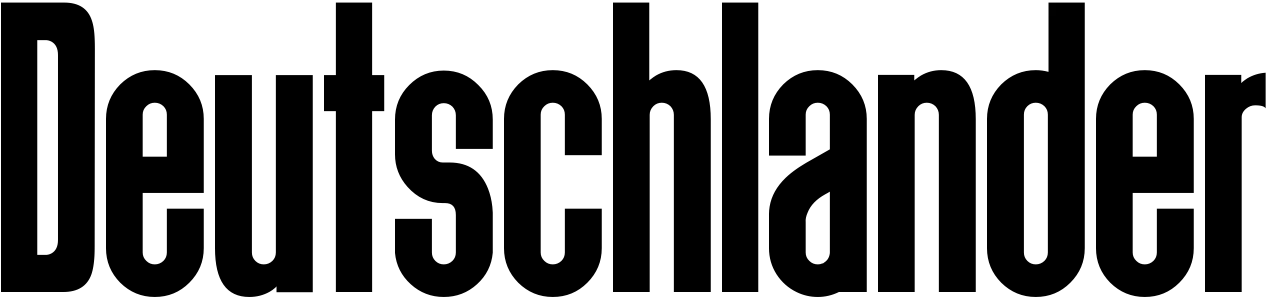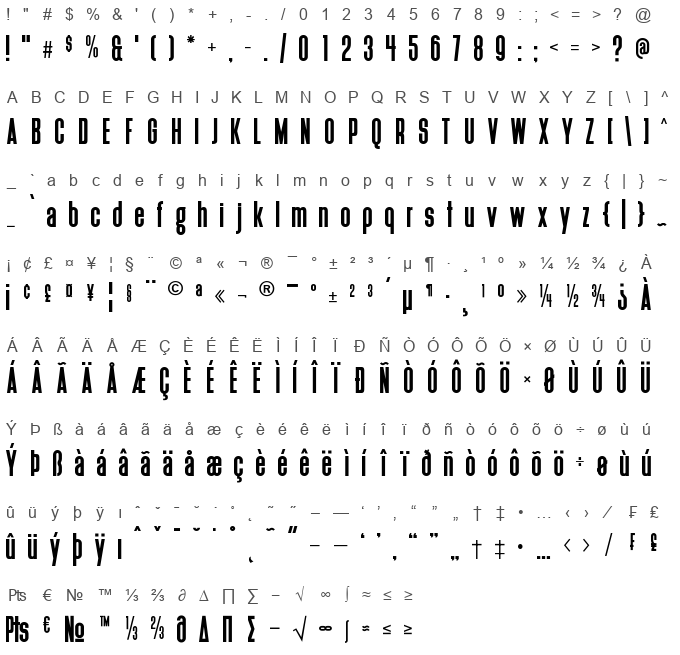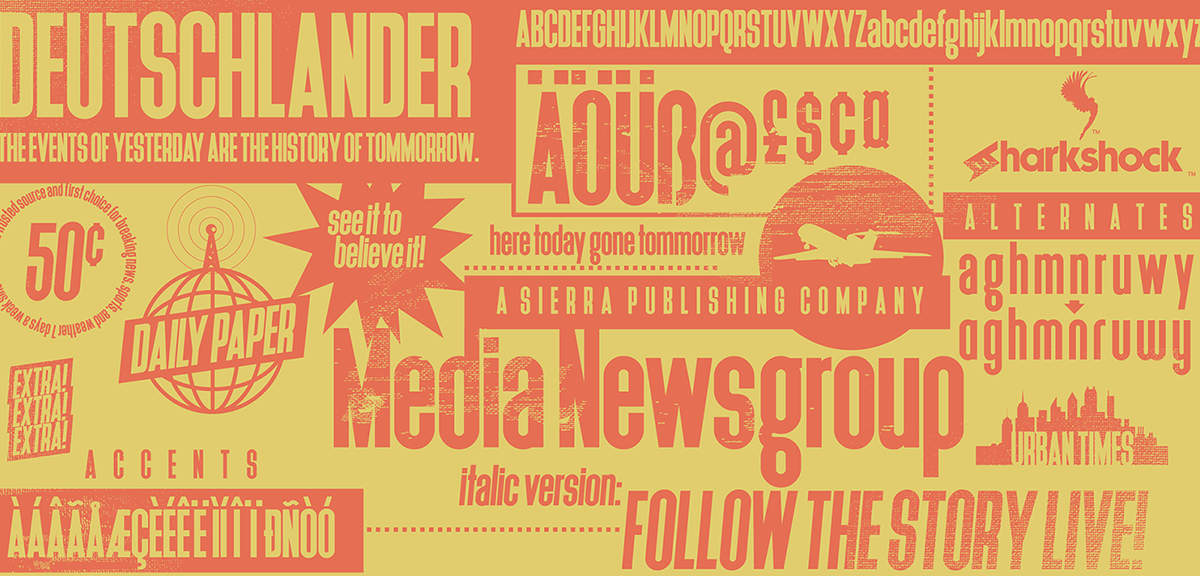
The Deutschlander II font is a display sans-serif typeface with a distinct vintage or retro aesthetic, specifically evoking the feel of post-war European news headlines and advertising. The characters are heavy, condensed, and very tall. It is presented in an initial-caps style, using all uppercase letters for strong impact, though it also includes alternates and a lowercase set. The family is versatile, offering both a regular style and an italic version.
Deutschlander